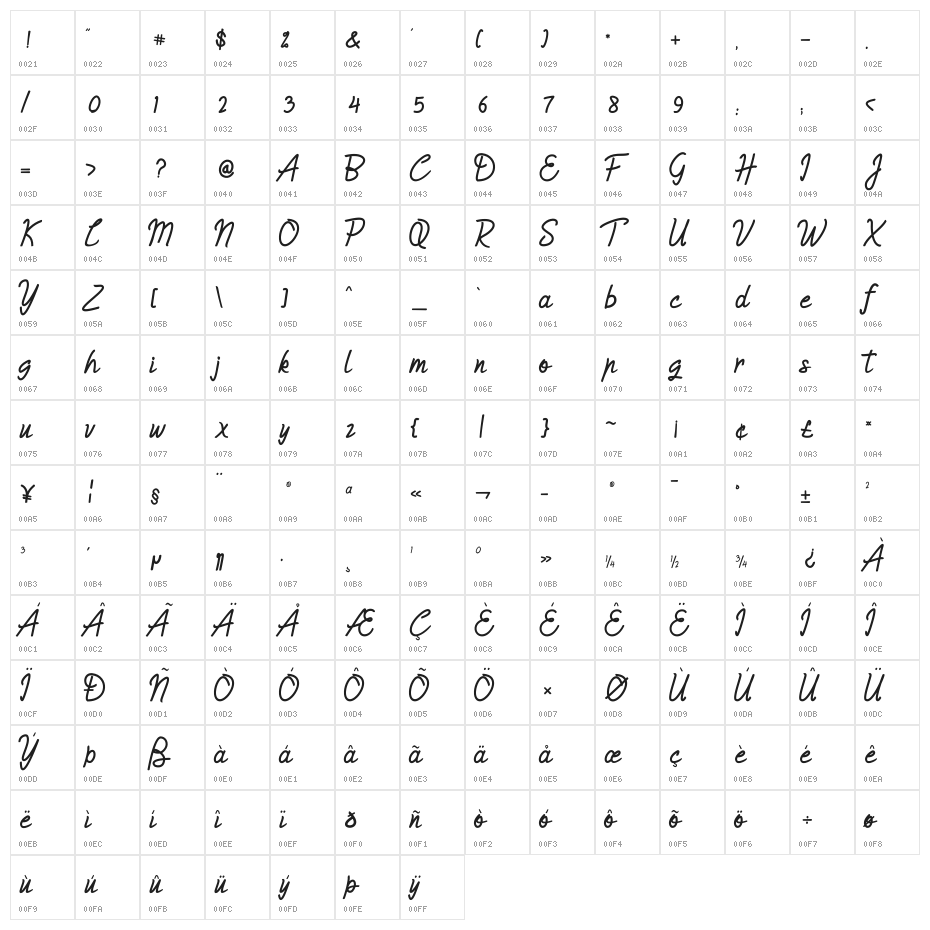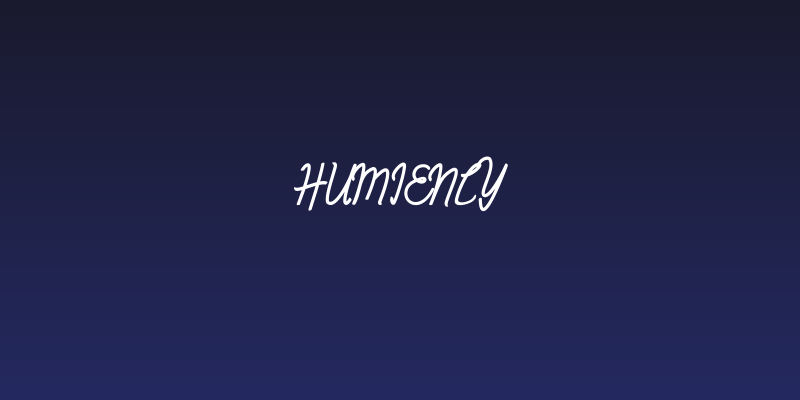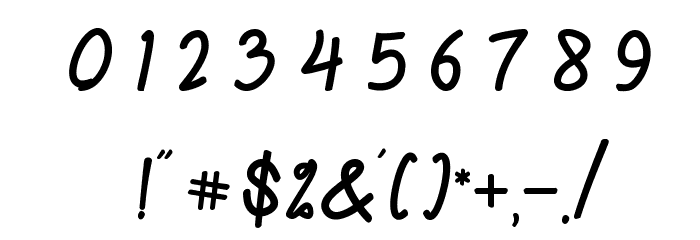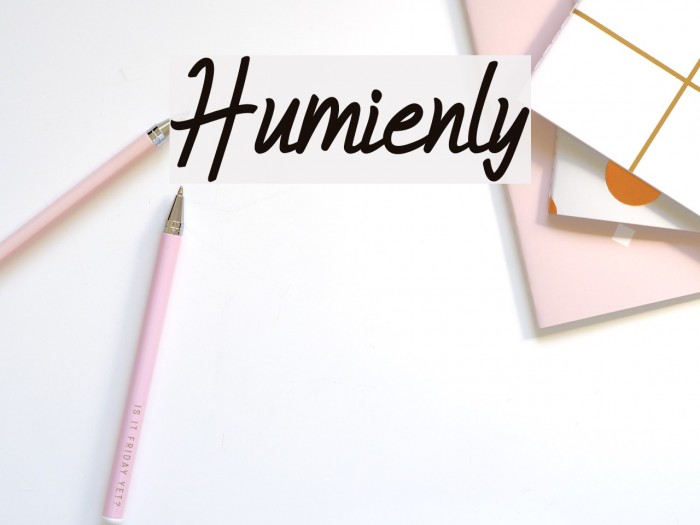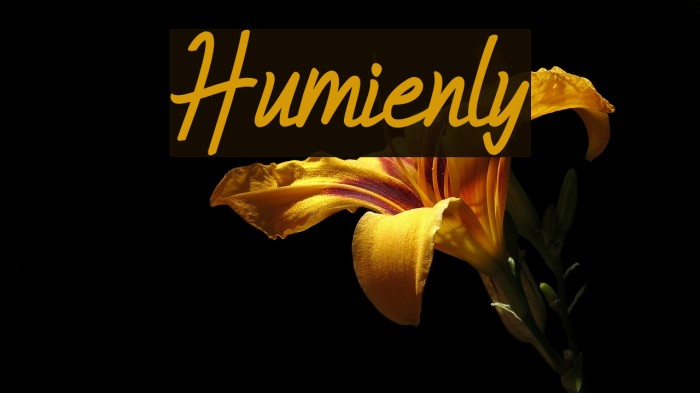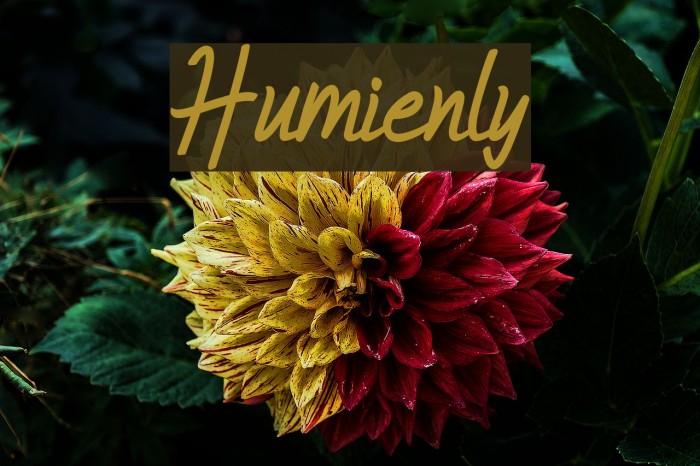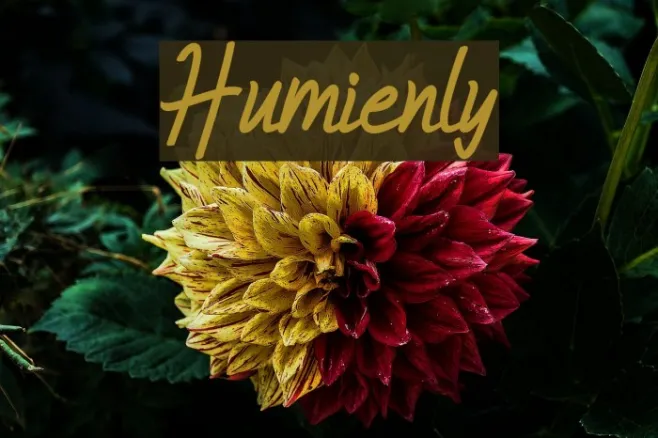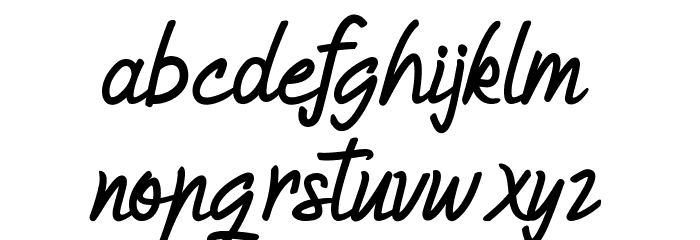
Humienly Font
Humienly Description
This font exhibits a dynamic and fluid script style, characterized by its elegant and flowing cursive letters. The uppercase letters are bold and slightly slanted, giving a sense of movement and grace. The lowercase letters maintain a consistent flow, with smooth connections between characters, enhancing its handwritten appearance. The numerals are clear and legible, matching the overall cursive theme. Special characters are designed to complement the script style, maintaining the same fluidity and elegance. This font is perfect for projects that require a personal touch, such as invitations, greeting cards, or branding materials.
| Proposed Projects | Ideal for invitations, greeting cards, branding, and any project needing a personal, elegant touch. |